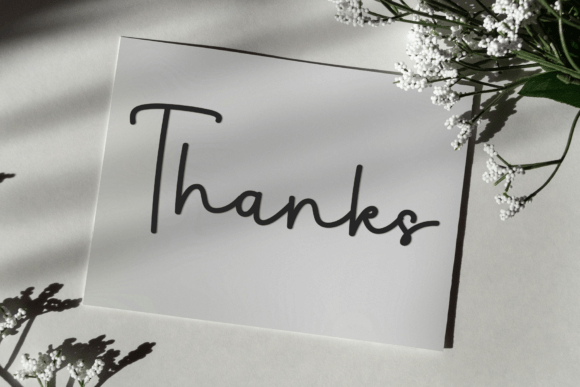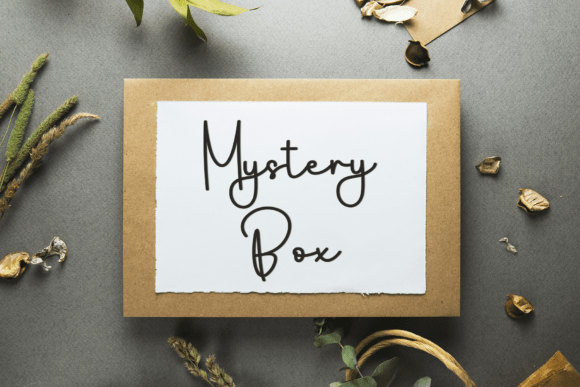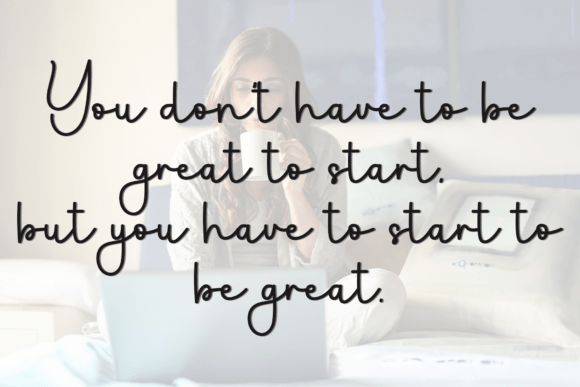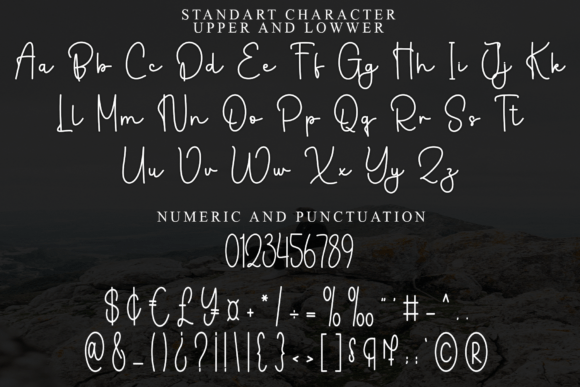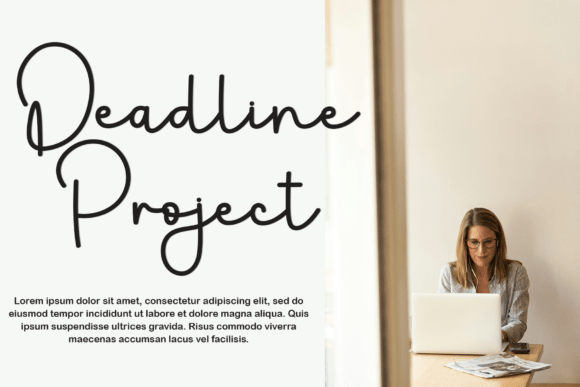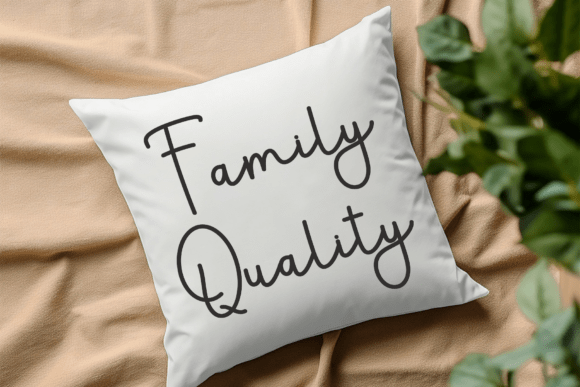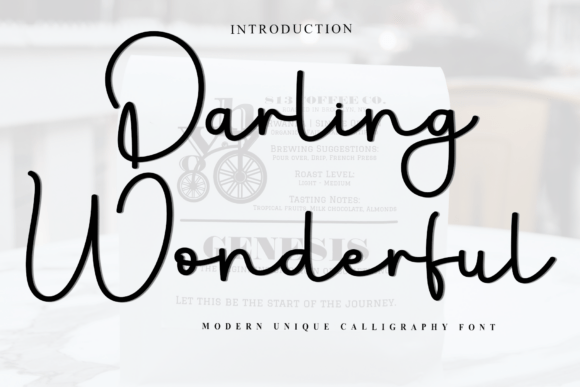
Discover the Charm of Darling Wonderful Font: Elevate Your Designs with Its Unique Touch
In the world of typography, a font can make all the difference in the success of a design project. For designers, crafters, and creative enthusiasts, finding the perfect font that combines beauty, uniqueness, and versatility is a treasure. This is where the Darling Wonderful Font comes into play, a stunning typeface that is about to revolutionize the way you approach your creative endeavors. With its soft, unique touch and distinctive strokes, Darling Wonderful is not just a font; it’s an artistic statement waiting to elevate your designs to new heights.
The Beauty of Darling Wonderful Font
Darling Wonderful Font is designed with a keen eye for detail, boasting a soft and unique aesthetic that sets it apart from more traditional fonts. Its characters are carefully crafted to provide a fresh and modern look, making it perfect for a wide array of design projects. Whether you’re working on a branding campaign, crafting beautiful handmade products, or simply looking to add a personal touch to your digital creations, this font offers the perfect blend of elegance and playfulness.
One of the standout features of Darling Wonderful Font is its incredible versatility. With a comprehensive set of characters, this font can be used across various platforms and applications. Whether you’re designing for Windows or working within open-source environments, Darling Wonderful integrates seamlessly, ensuring that your creative vision is not limited by technical constraints. This compatibility makes it an invaluable asset for designers and crafters who work across different mediums and projects.
Darling Wonderful Font is more than just a typeface; it’s a tool for creativity. Its natural and eye-catching style lends itself beautifully to a variety of creative works. Imagine using it for:
- Branding and Logos: Create a memorable brand identity with a font that stands out.
- Stationery and Invitations: Add a touch of elegance and sophistication to your paper goods.
- Web Design: Enhance your website’s aesthetic with a modern and clean font.
- Crafting and DIY Projects: Perfect for handmade products, from jewelry labels to craft tutorials.
Why Choose Darling Wonderful Font?
Choosing Darling Wonderful Font for your projects comes with numerous benefits:
- Unique Aesthetic: Stand out from the crowd with a font that has a special character.
- High Versatility: Use it across different projects and applications.
- Wide Compatibility: Works well with both Windows and open-source platforms.
- Easy to Read: Its clear and soft style makes it easy on the eyes.
Getting Started with Darling Wonderful Font
Darling Wonderful Font is a game-changer for designers and crafters looking to infuse their projects with a unique and beautiful touch. Its combination of softness, uniqueness, and versatility makes it an ideal choice for a wide range of creative endeavors. Whether you’re a professional designer or a hobbyist looking to add some flair to your crafts, Darling Wonderful Font is sure to inspire and enhance your creations. With its wide compatibility and ease of use, there’s no reason not to give it a try. Elevate your designs and make them appealing to a broad audience across various artistic and creative fields with Darling Wonderful Font.
Discover the charm of Darling Wonderful Font today and transform your creative projects with its distinctive and captivating style.